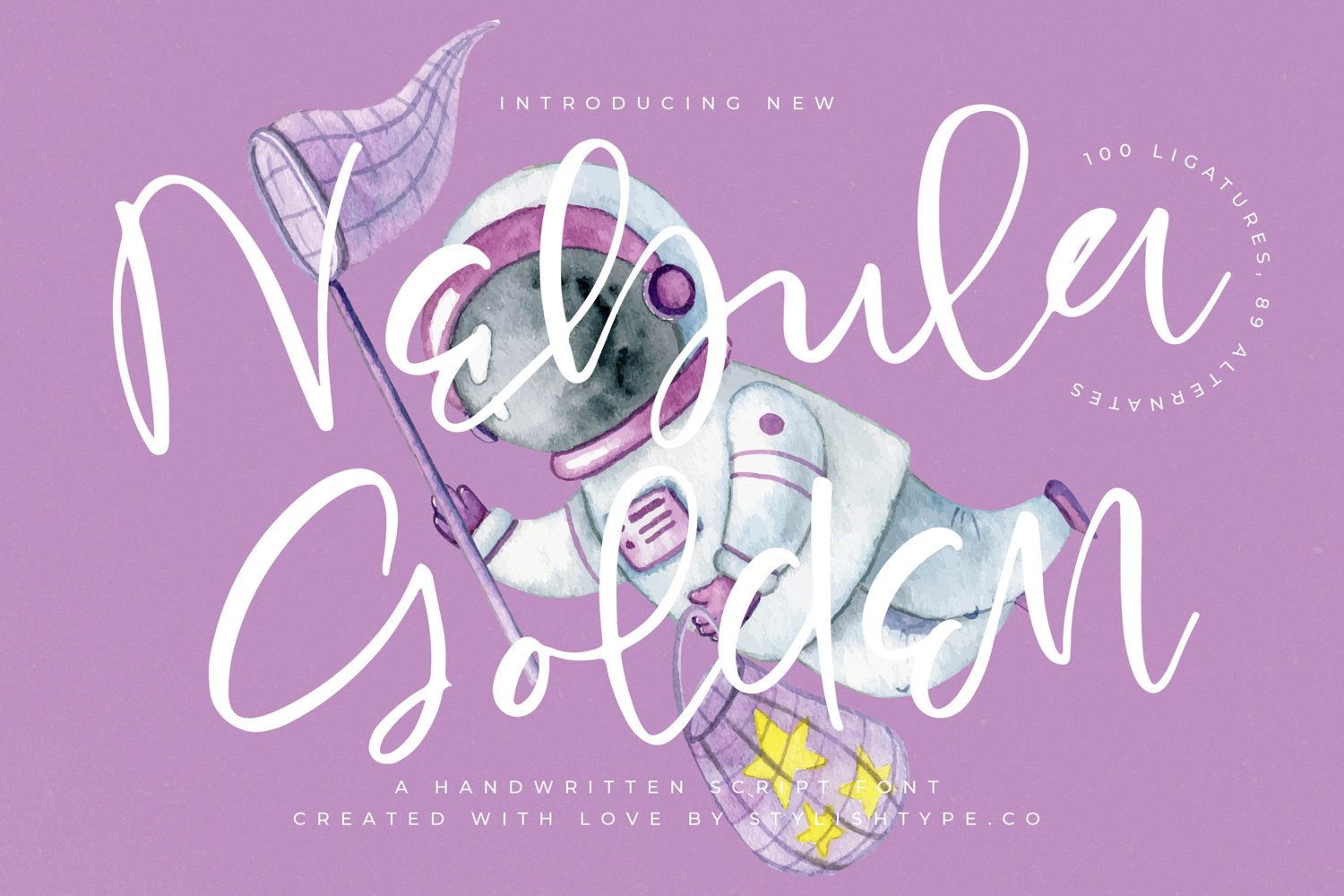
Nebula Golden - Handwritten Script Font
Elevate your design projects with the authentic, flowing script of the new Nebula Golden - Handwritten Script Font. This signature typeface captures the essence of authentic calligraphy, delivering graceful, sweeping lines and natural variance that provide every composition with a truly personalized touch. It is a high-impact statement designed for maximum emotional resonance and visual appeal, ensuring your branding stands out with unmatched refinement and artistry.